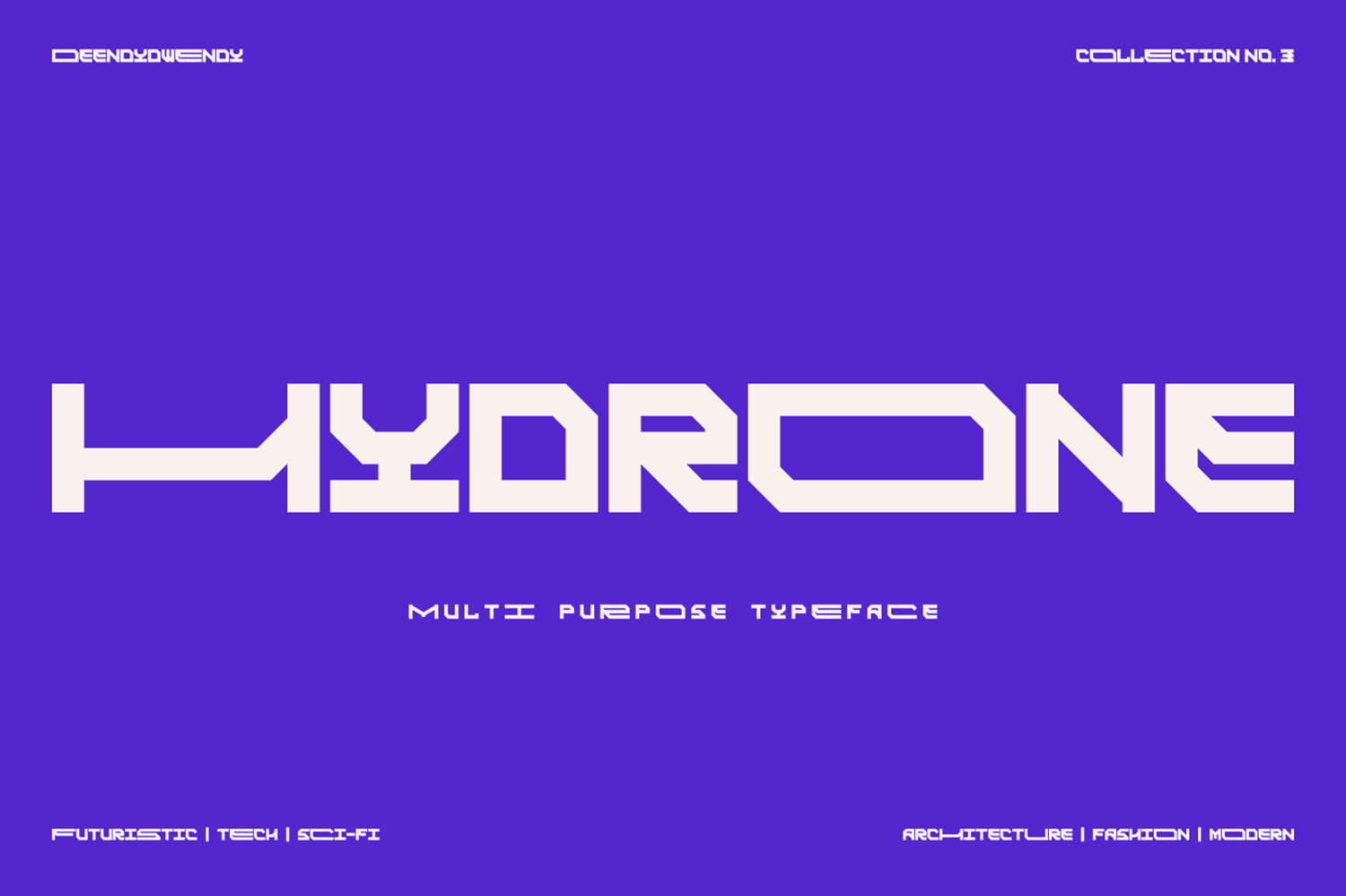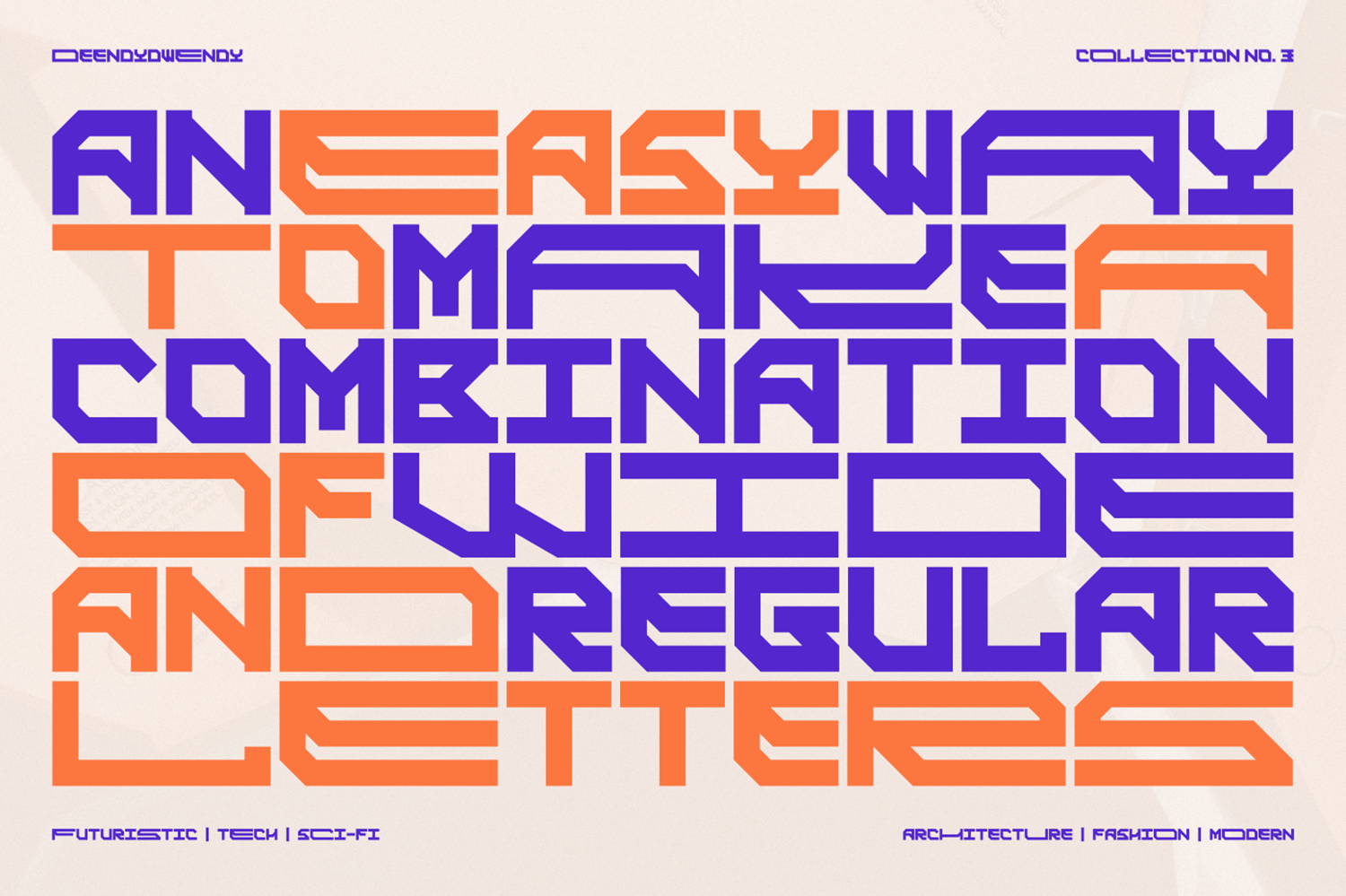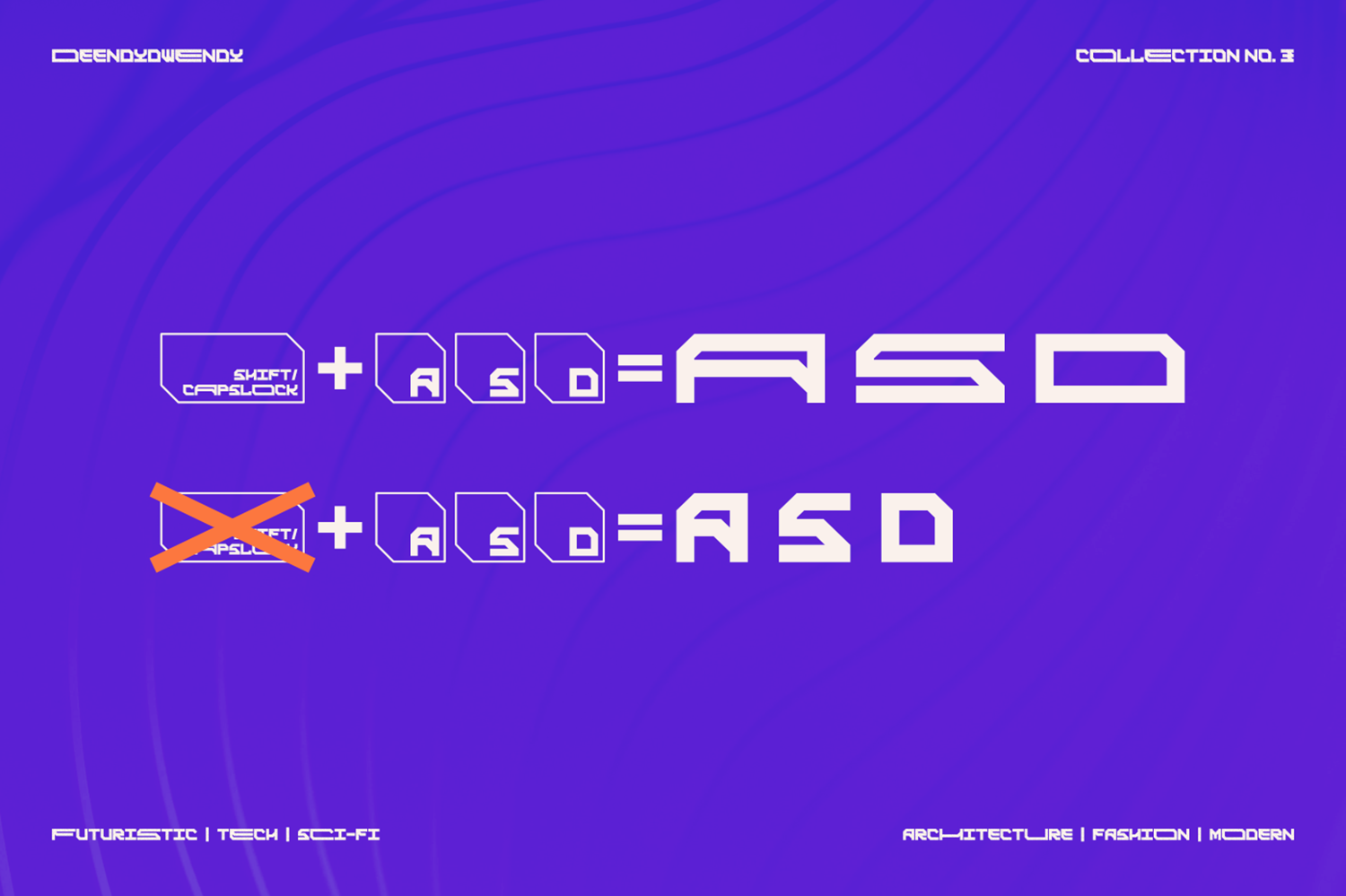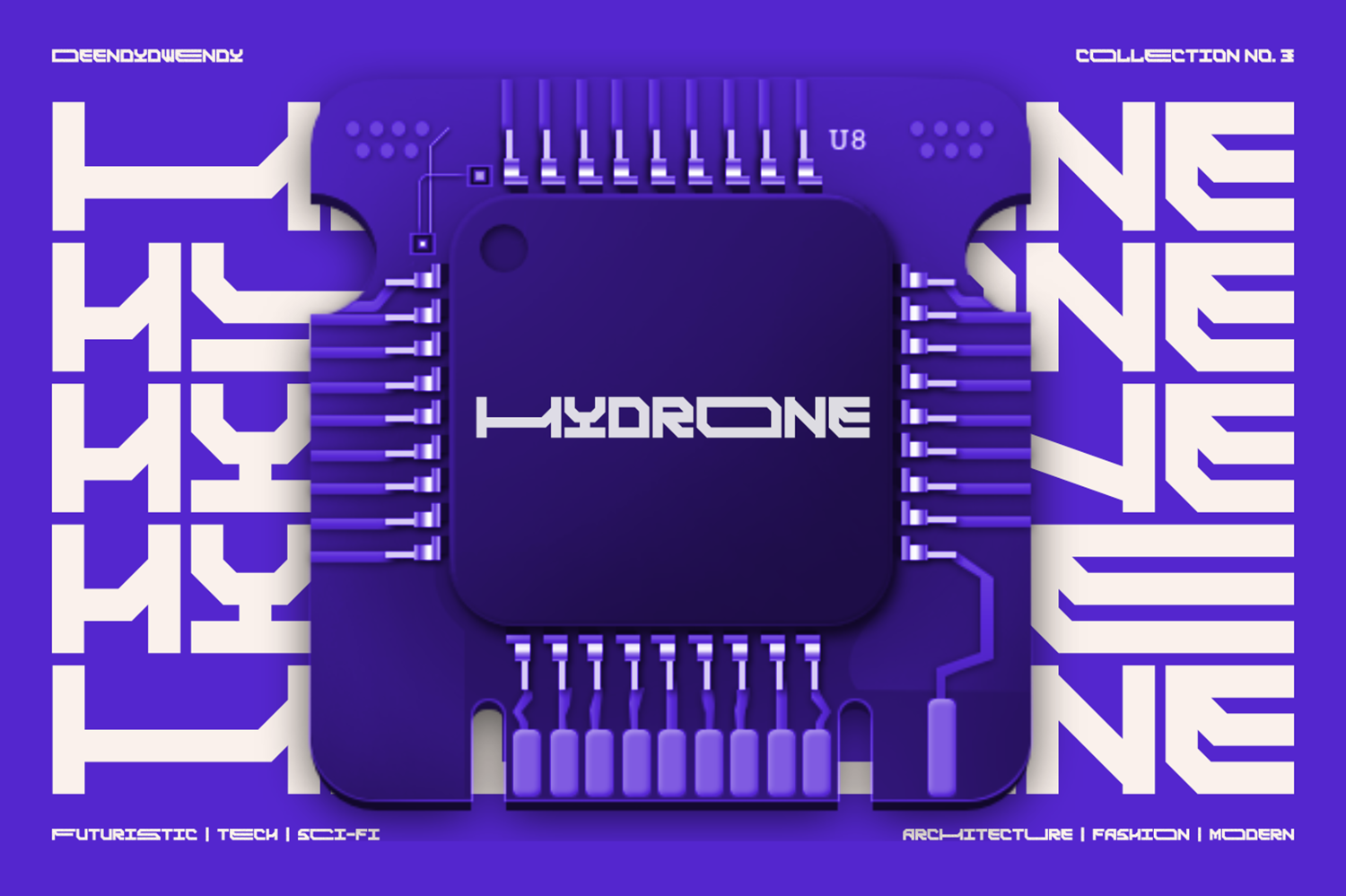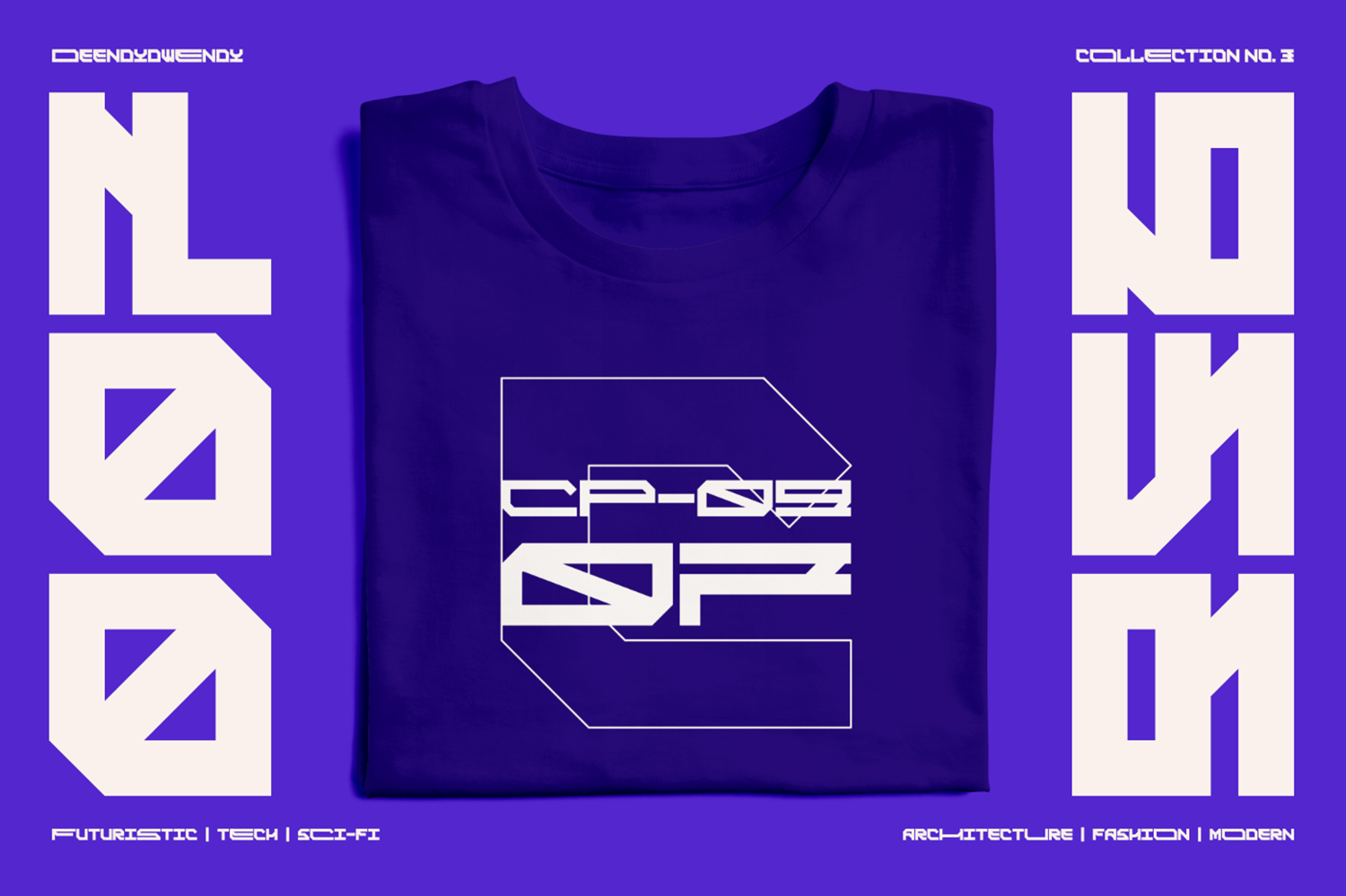
Hydrone Free Font
Hydrone Free Font is a typeface that looks modern, futuristic, and has a sci-fi style. In addition to providing an attractive appearance, Hydrone also provides convenience to its users. First on the symmetrical shape of each letter and character. The second is that it makes it easy to combine wide and regular letters with precision and symmetry. This free typeface was designed by a talented Dendy Ramadhan. If you like it don’t forget to check out the full version.